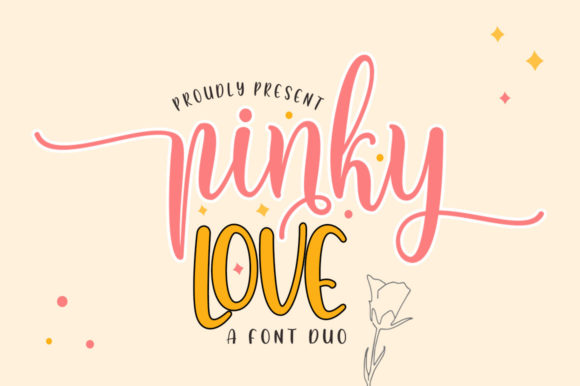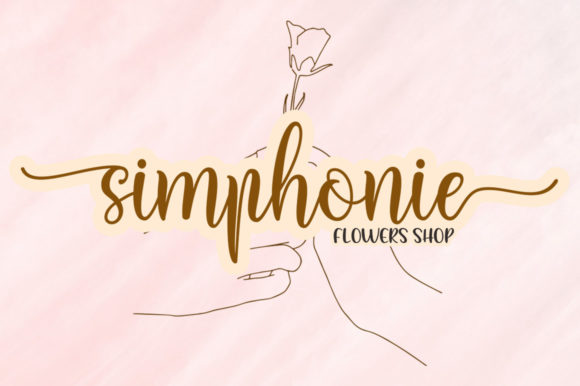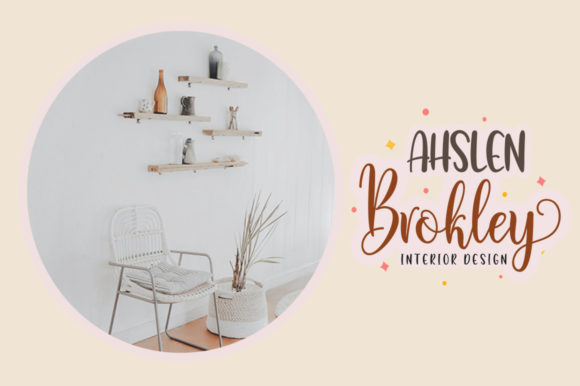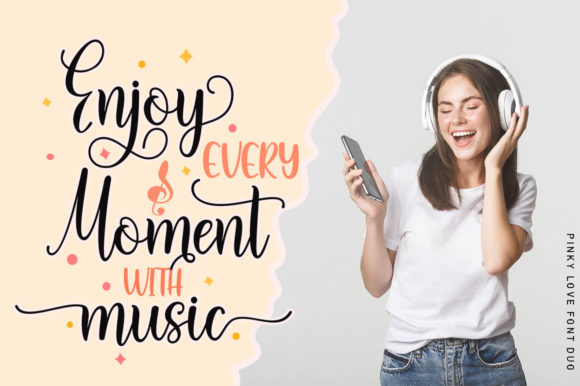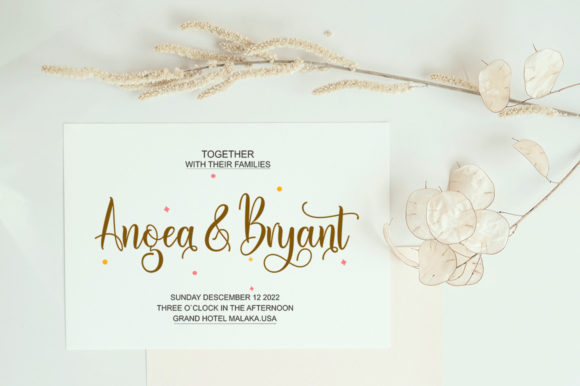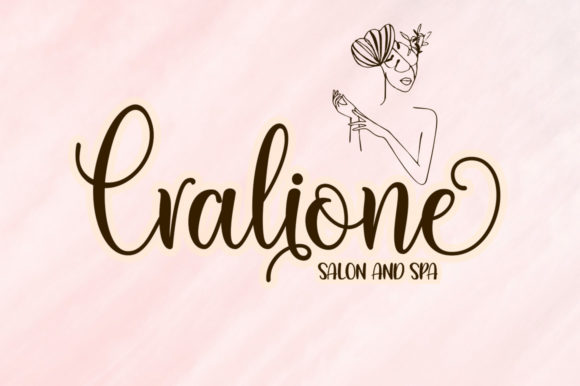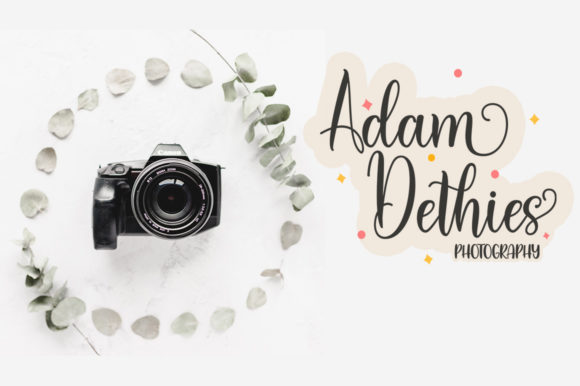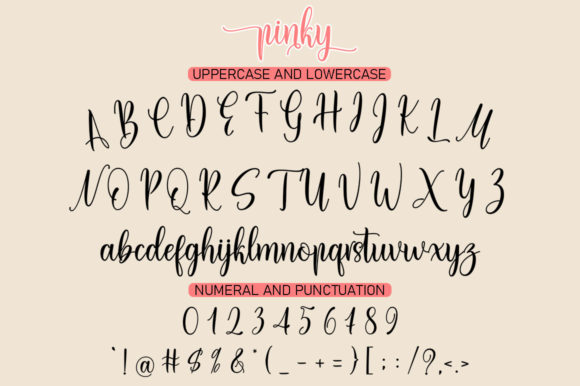
Pinky Love Font is a modern handwritten font with two syles. A carefully crafted collection of fonts combining informal, romantic, sweet, lovely design elements and hand-drawn typographic design elements. This font is very nice for designing magazine previews and covers design, logo designs, shirt designs, invitations, cards, and other graphic needs.
Pinky Love Font Duo Font